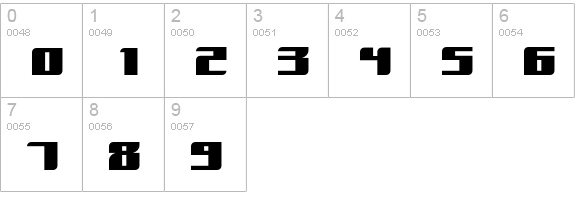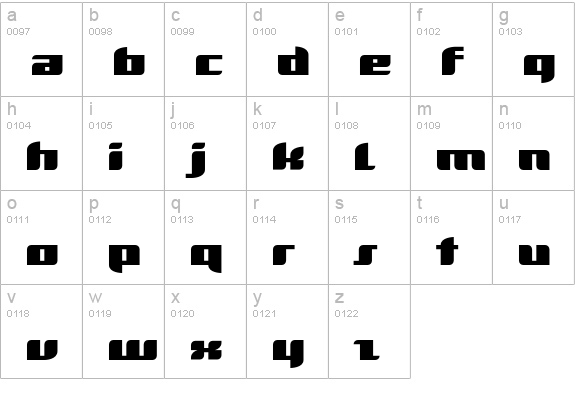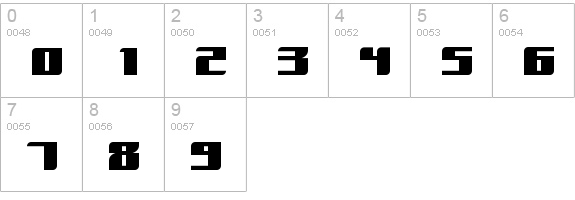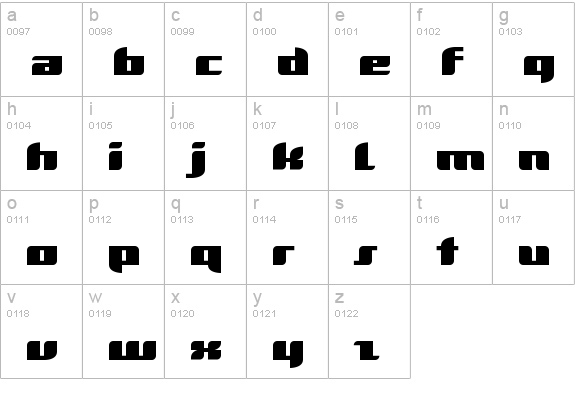
Dimentia-Wide Font Details
Dimentia-Wide is a distinctive, extended-width variant in the Dimentia typeface family \xE2\x80\x94 well suited to design and typography projects.
Dimentia-Wide font is a sleek and modern typeface that exudes sophistication and elegance. With its wide letterforms and clean lines, this font is perfect for creating eye-catching designs that demand attention. The versatility of Dimentia-Wide font makes it suitable for a wide range of projects, from branding to posters to social media graphics. The best part? Dimentia-Wide font is completely free to download at FontsMarket.com! This means you can elevate your designs without breaking the bank. Don't miss out on the opportunity to add this stylish font to your collection and take your projects to the next level. Download Dimentia-Wide font today and let your creativity shine!